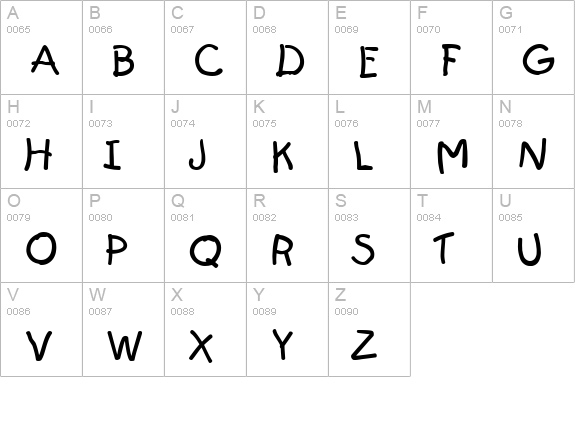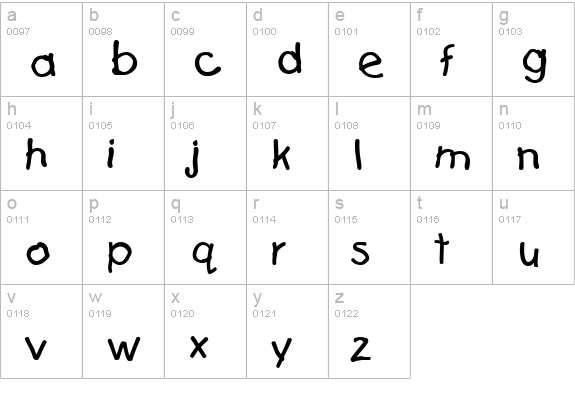
Catchup Normal Font Details
Catchup Normal is the standard, neutral variant in the Catchup typeface family \xE2\x80\x94 well suited to general body text, paragraphs, and standard typographic work.
Catchup Normal font is a versatile typeface that combines a clean, modern design with a touch of elegance. Perfect for a wide range of design projects, this font is easy to read and has a balanced appearance that makes it suitable for both headings and body text. Its subtle yet stylish look can add a sophisticated touch to any project. Best of all, Catchup Normal font is available for free download at FontsMarket.com. Whether you're working on a website, brochure, or any other design project, this font is a great choice for adding a professional and polished look. Download Catchup Normal font today and elevate your design to the next level.